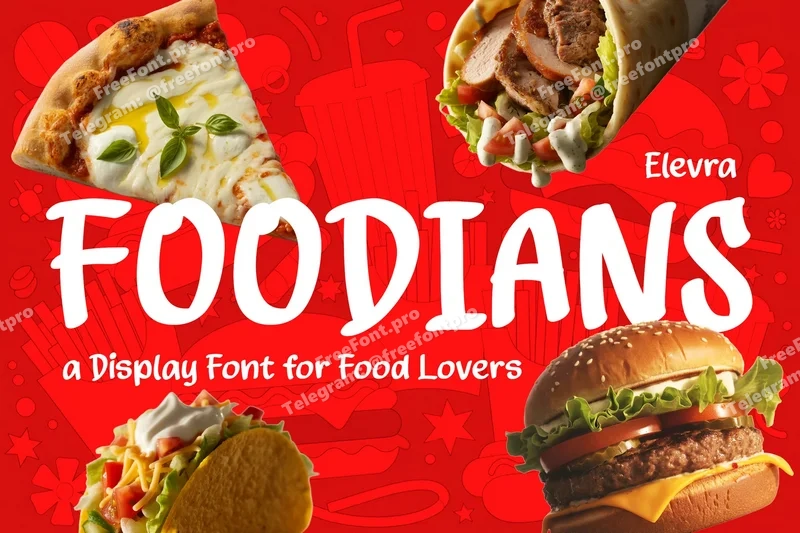
Foodians Food Display Font
Foodians is a fun and bold display font designed especially for food lovers, restaurants, and culinary branding. This typeface brings a cheerful and appetizing vibe to any design, making it perfect for menus, cafe logos, food packaging, restaurant signage, and social media promotions. With its rounded shapes and friendly curves, Foodians delivers a warm, inviting feel that instantly grabs attention and makes your message stand out.
Whether you’re crafting mouthwatering advertisements for a burger shop, creating packaging for a pizza brand, or designing social media posts for a bakery or coffee shop, Foodians helps your design look delicious and full of personality. The playful style and balanced letterforms make it versatile for both digital and print projects. Foodians is your go-to font when you want to express joy, taste, and creativity in one tasty typeface.
Playful and bold display font perfect for food-themed designs
Ideal for restaurant logos, menus, packaging, and branding projects
Fun and appetizing style with smooth, rounded curves
Works great for both digital and print materials
Includes uppercase, lowercase, numbers, and punctuation